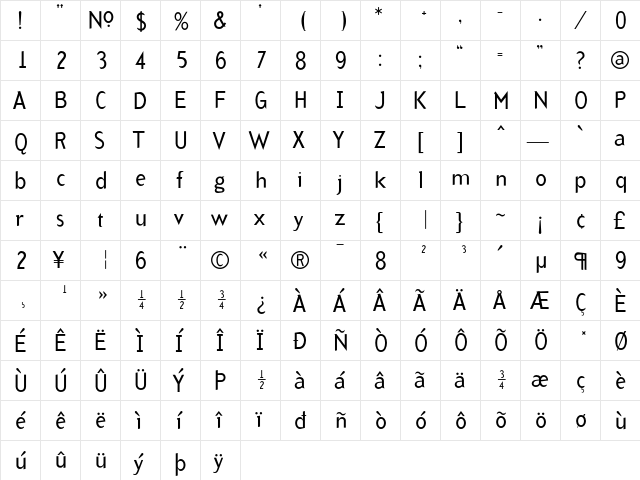
ArbPercent Roman
Design Context for ArbPercent Typeface
ArbPercent offers clean, dependable letterforms without strong stylistic allegiance, making it a practical choice for designers who need flexibility.